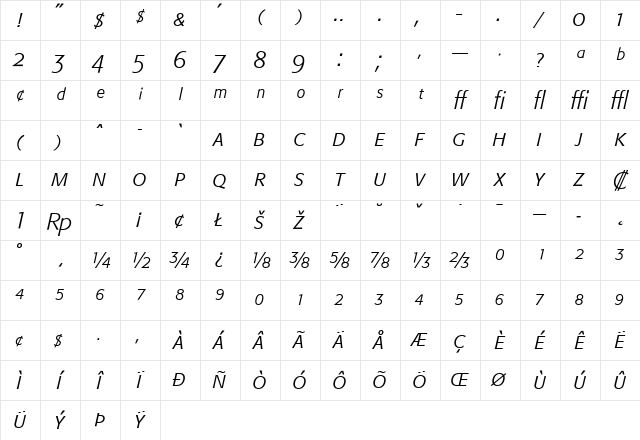
FormataExpert-Light LightItalic
Style: LightItalic
Design Context for FormataExpert-Light
FormataExpert-Light is a composed and adaptable typeface that performs quietly and consistently across a wide range of design contexts. The slanted form adds forward momentum and visual energy. Its slender proportions lend an understated elegance to any composition.
Pro Tip: Use FormataExpert-Light for emphasis, pull quotes, and subheadings where its slanted energy can add rhythm to the layout.